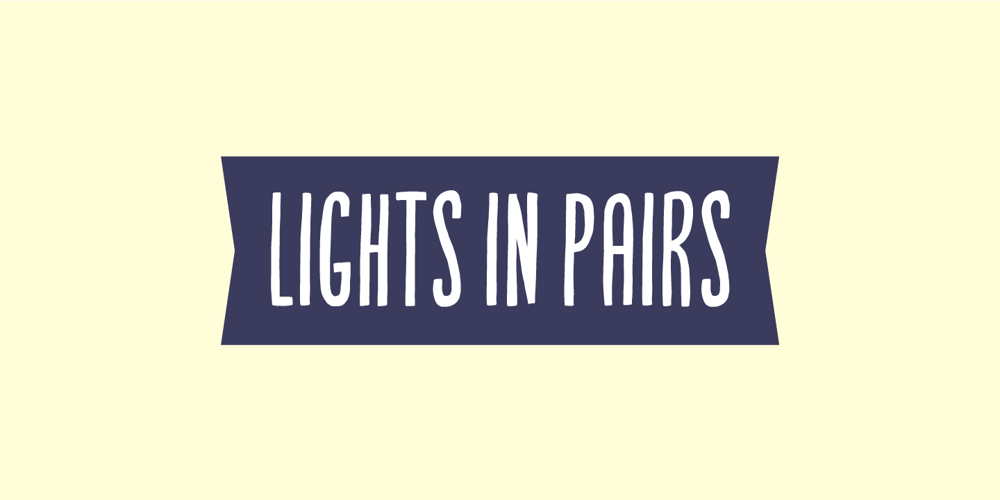
Lights in Pairs Font Family was designed by Jakob Fischer and published by Bogstav. Lights in Pairs contains 2 styles and family package options. It’s legible, it’s handmade and it has a lot of personality…with a twist of organic freshness it is guaranteed to make that next project of yours stand out!